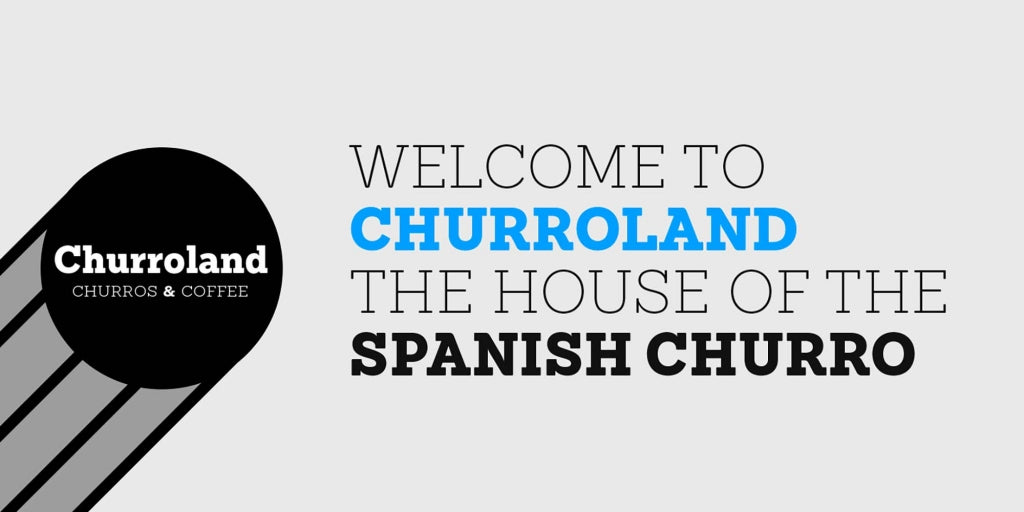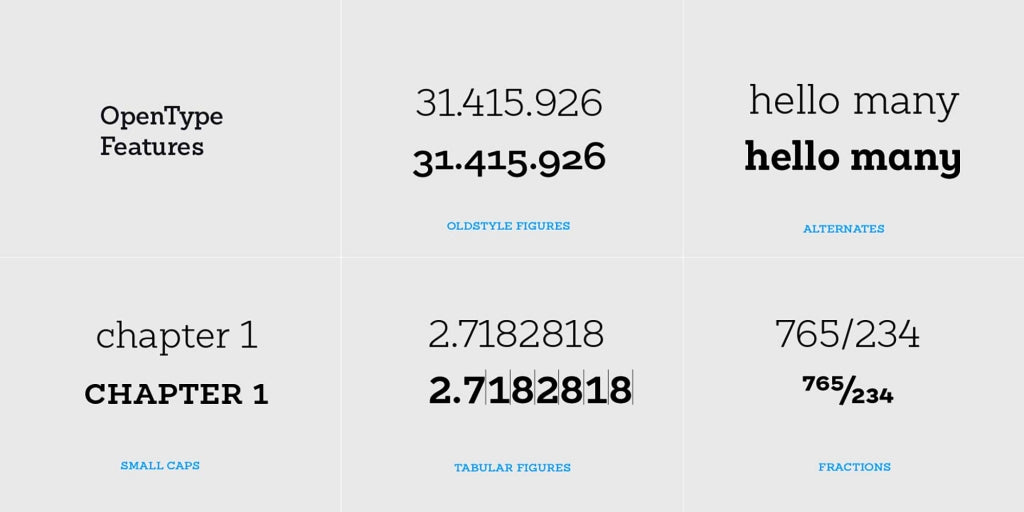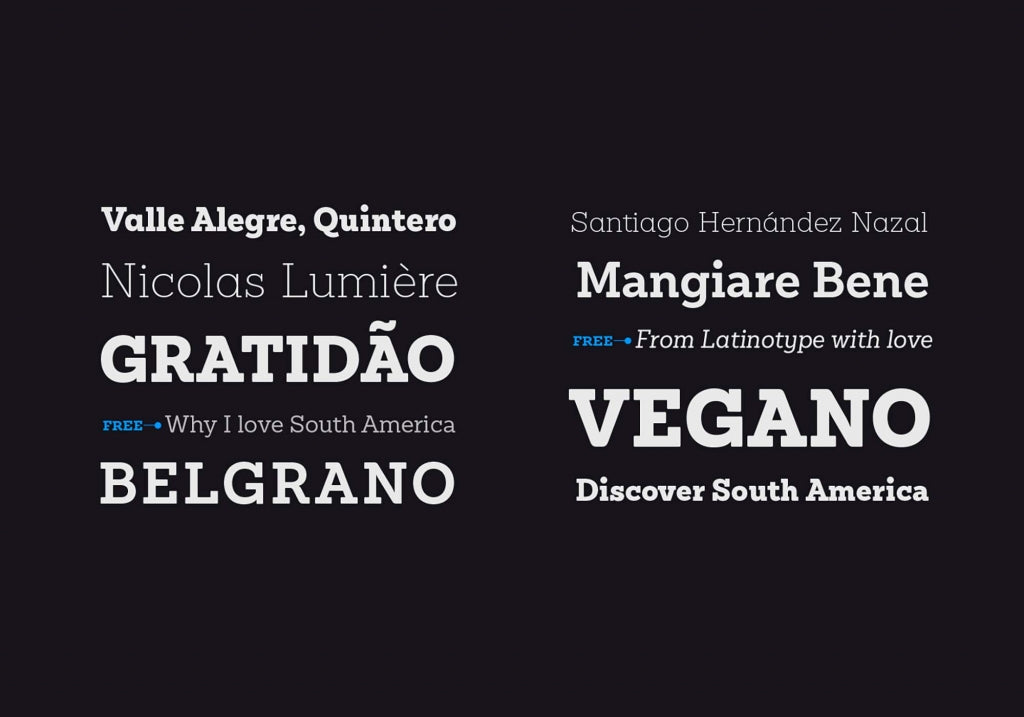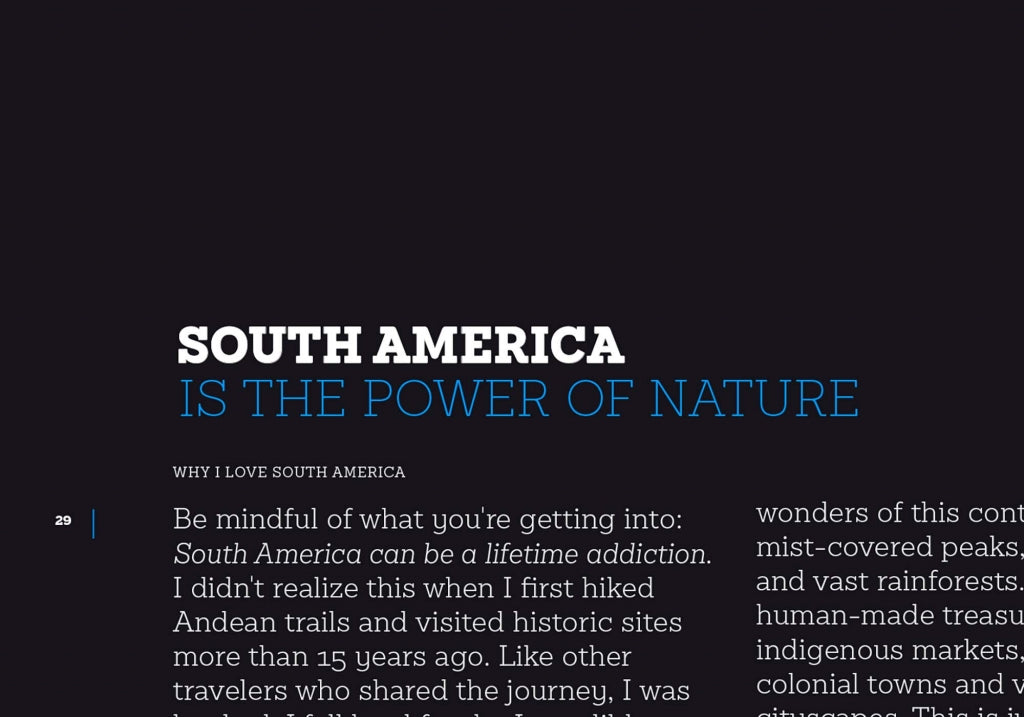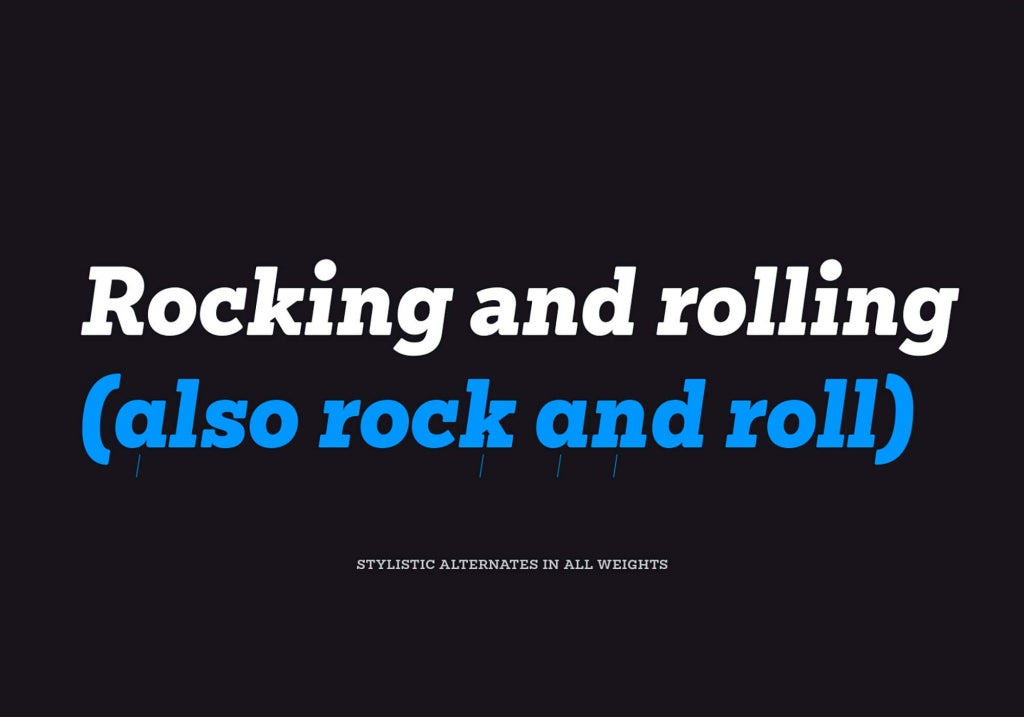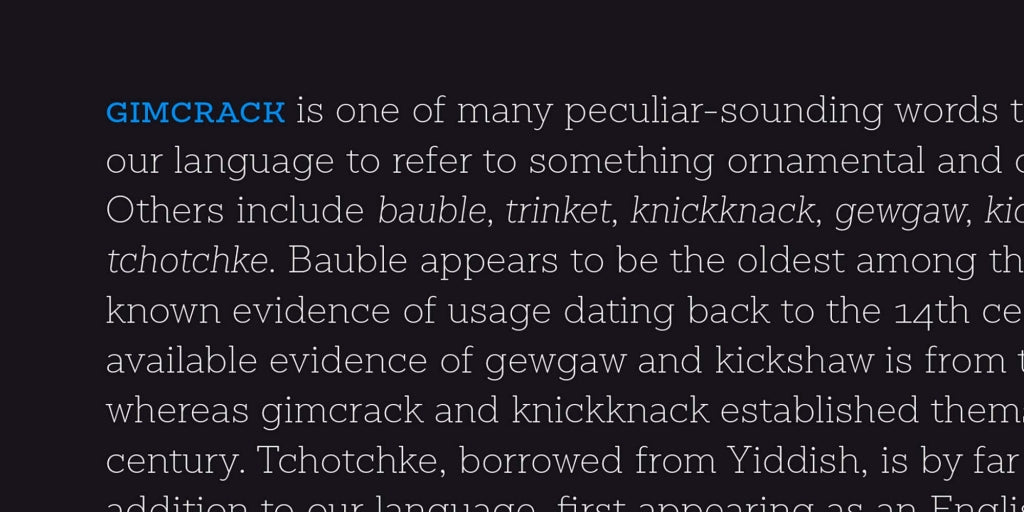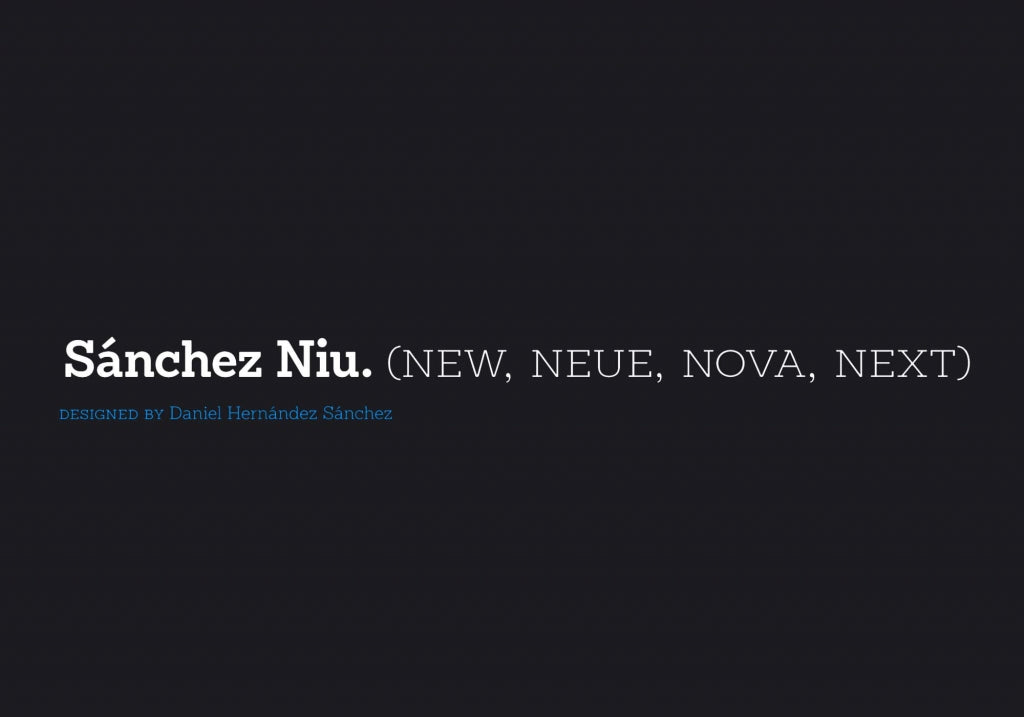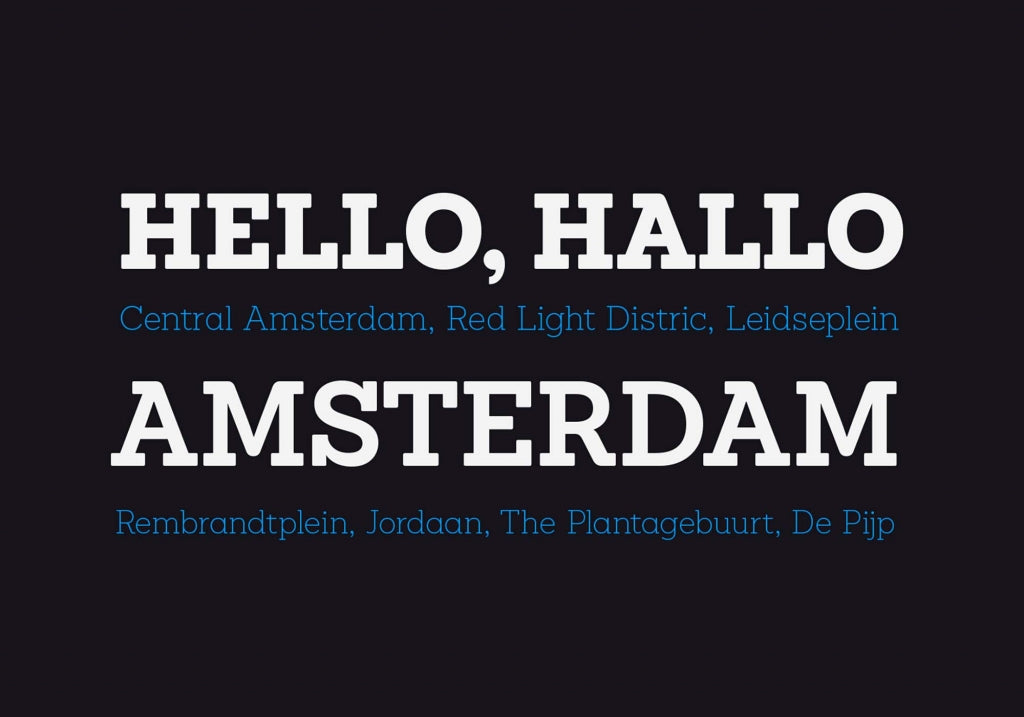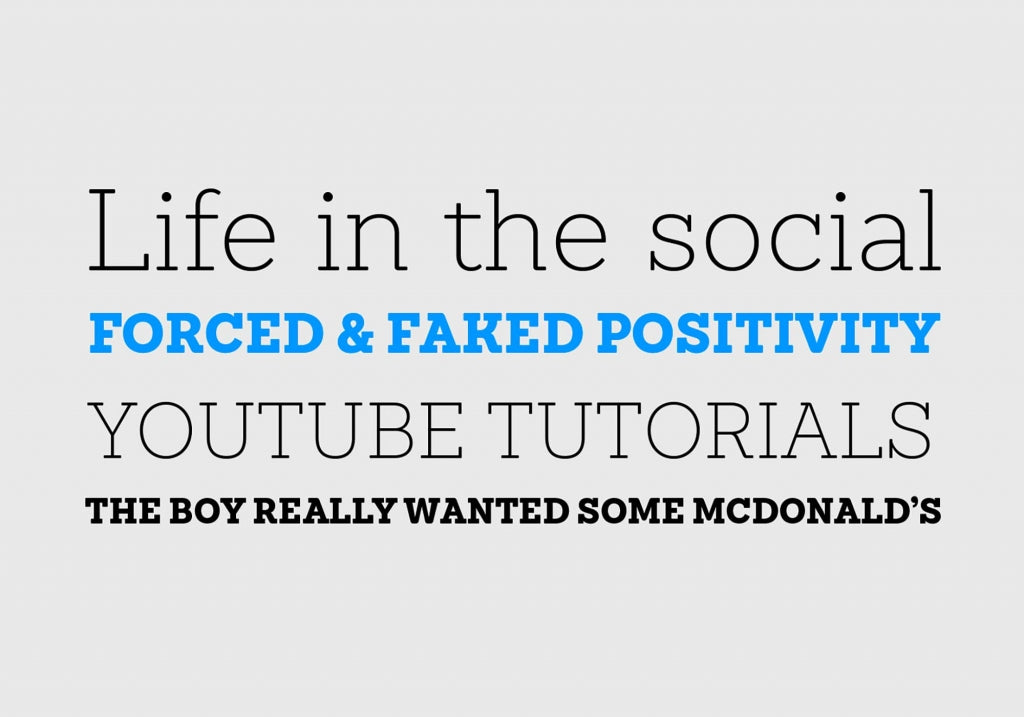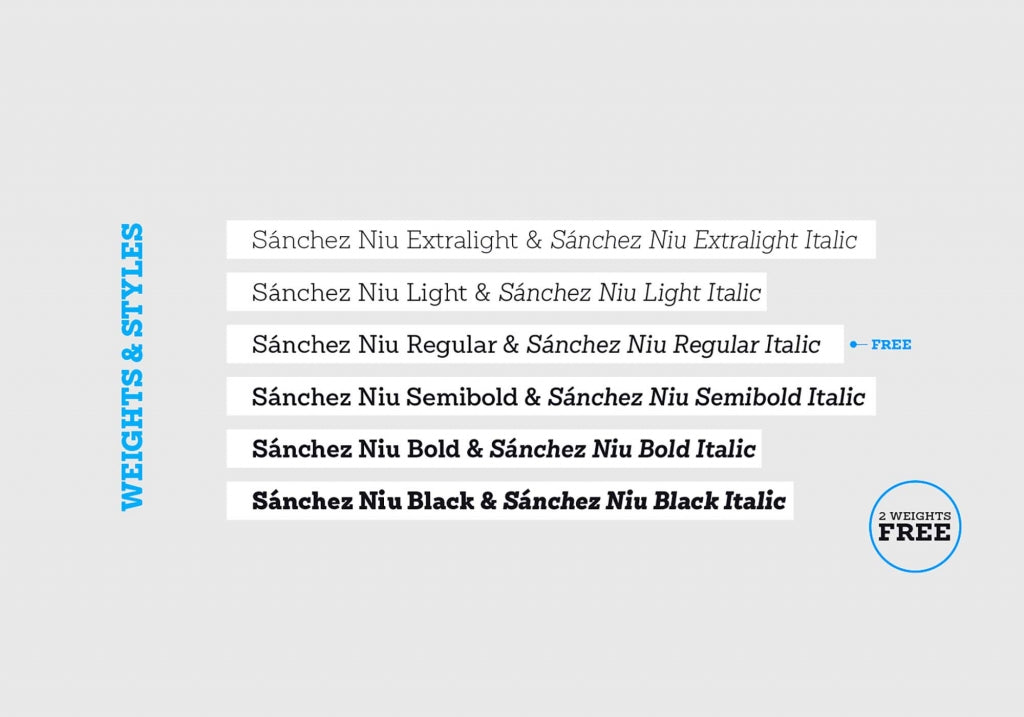
Sánchez Niu Font
Today we introduce a font like no other, a resource that allows our users to spend less time worrying about the details, and more time coming up with creative and innovative ideas.
This is the Sánchez Niu font designed by Daniel Hernández Sánchez. It’s a redesign of Sánchez, a never seen before Latinotype family. What’s astounding about it is that it supports 219 different languages, so is there really a need to have any other fonts? With one single click, you will have at your hands a set of 720 characters with original designs and Open Type features: small caps, old style figures, tabular figures, fractions, etc. The stylistic alternates come in multiple weights including light, bold, black, and regular which makes it suitable for any logos, headlines, book titles, posters, menus, long texts, and many others. However, don’t forget that this is only a free demo version.